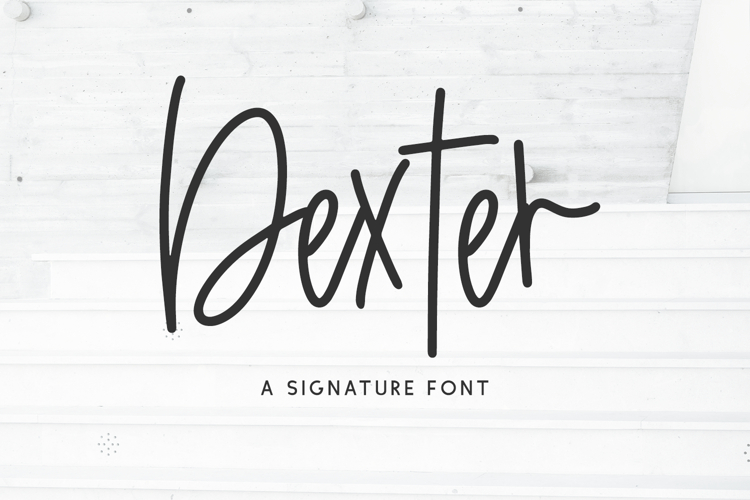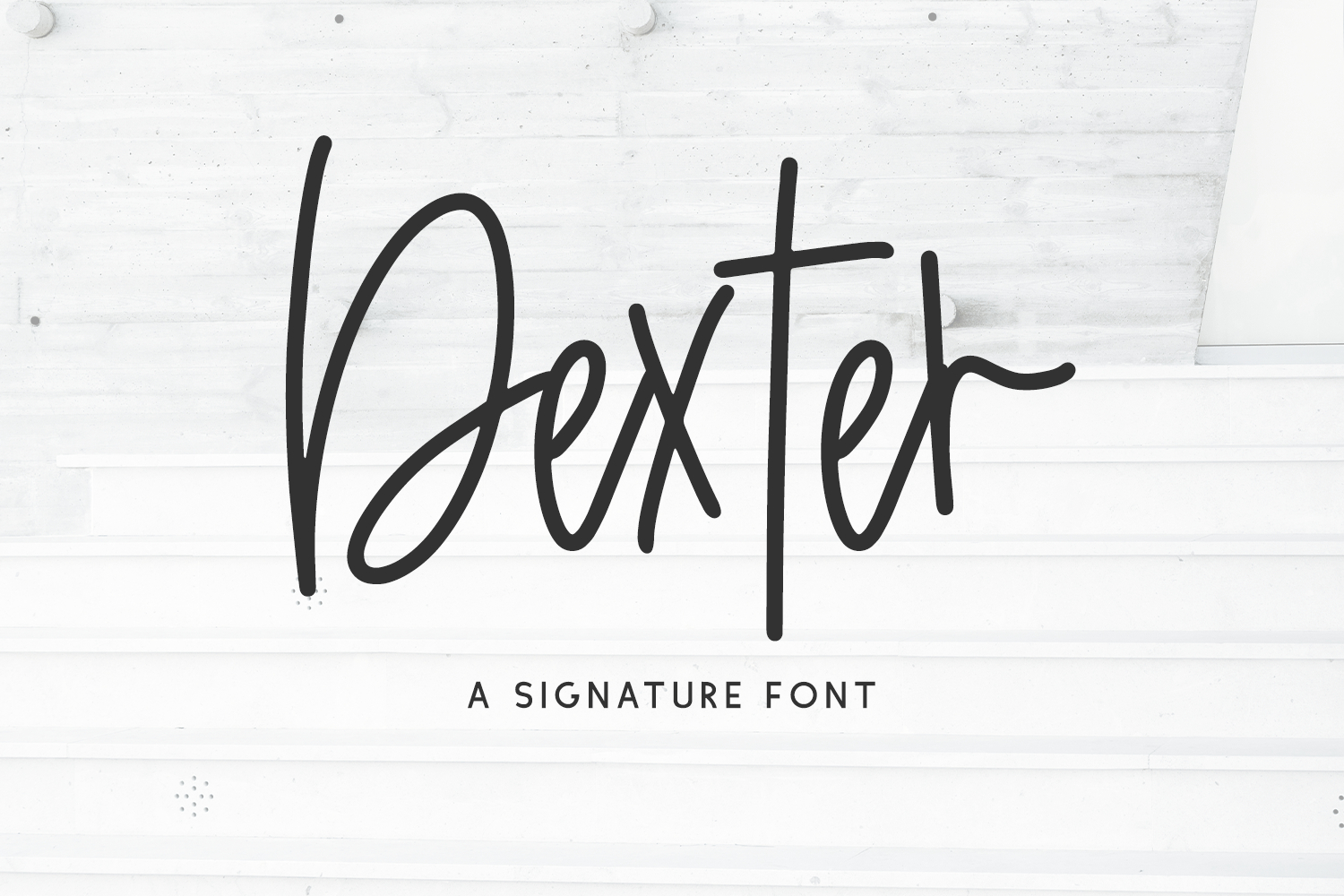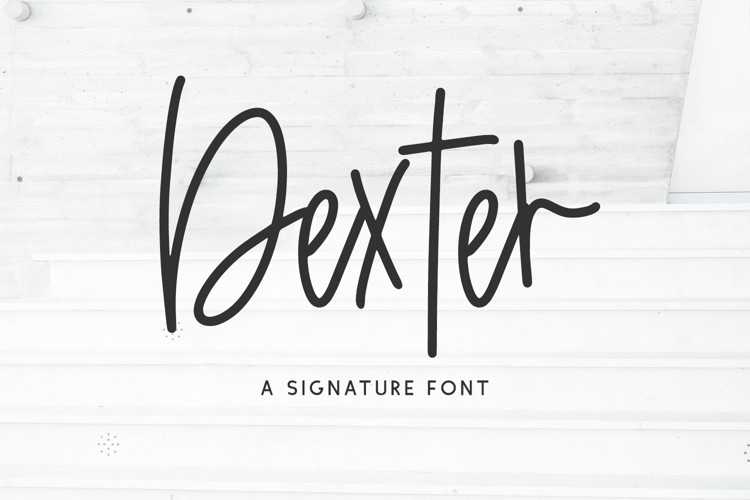
Introducing Dexter Script, a messy signature font.
Dexter Script is best for:
- logos + branding for gender-neutral applications
- website design + website accents - think design blogs, travel blogs, fashion blogs, & more